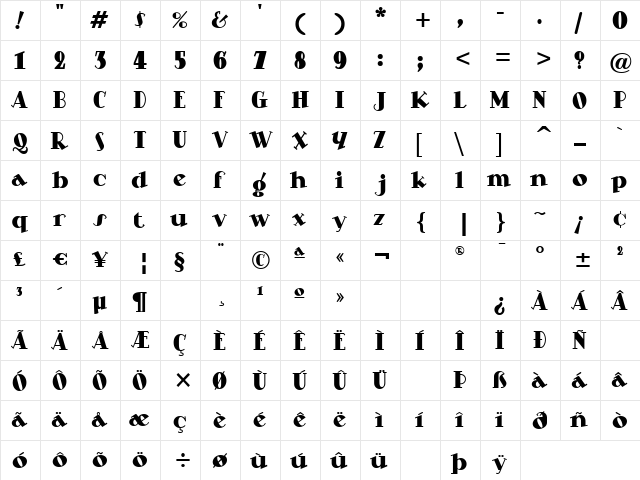
Steppin Out Bt Roman Regular
Design Context for Steppin Out Bt Roman Typeface
Steppin Out Bt Roman is a composed and adaptable typeface that performs quietly and consistently across a wide range of design contexts.